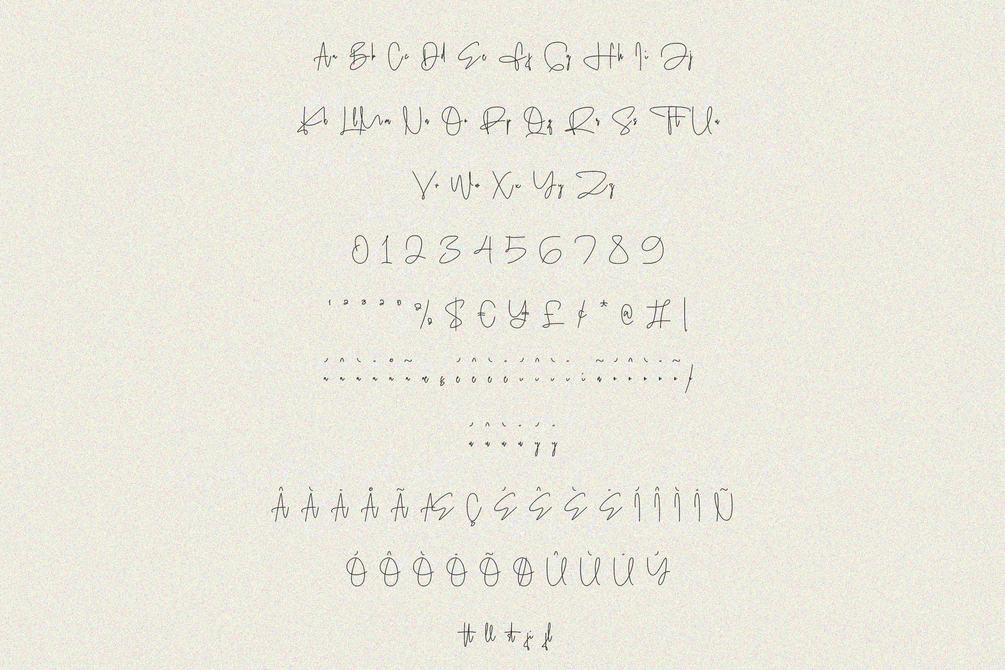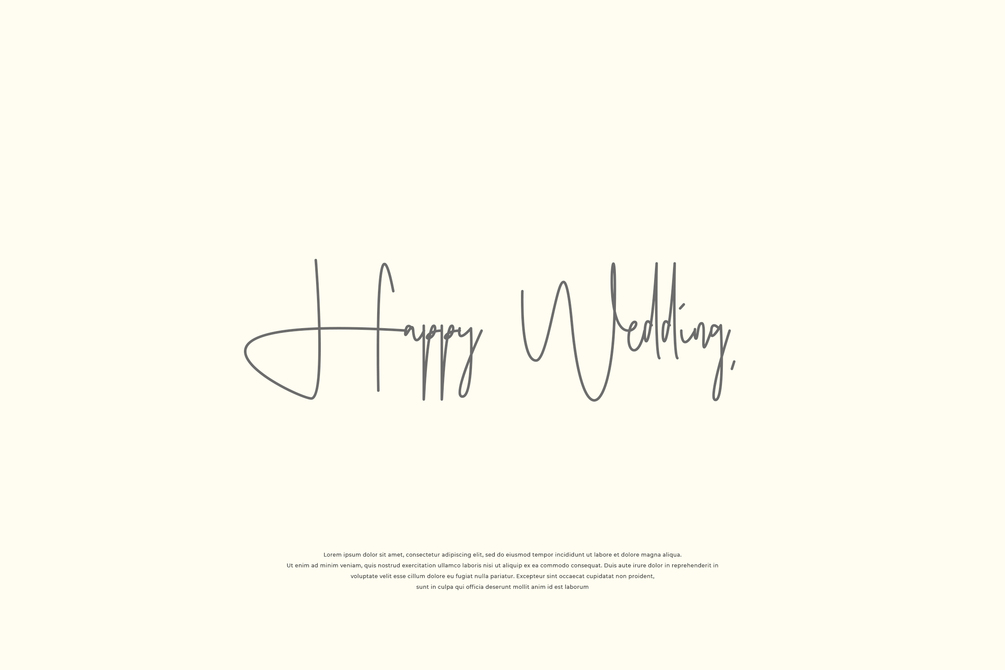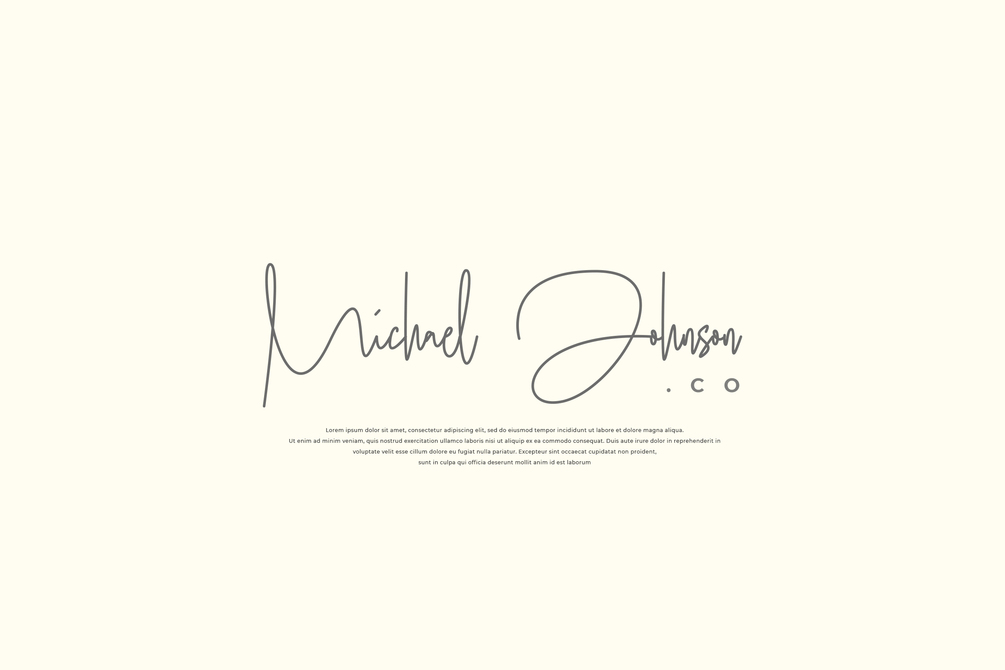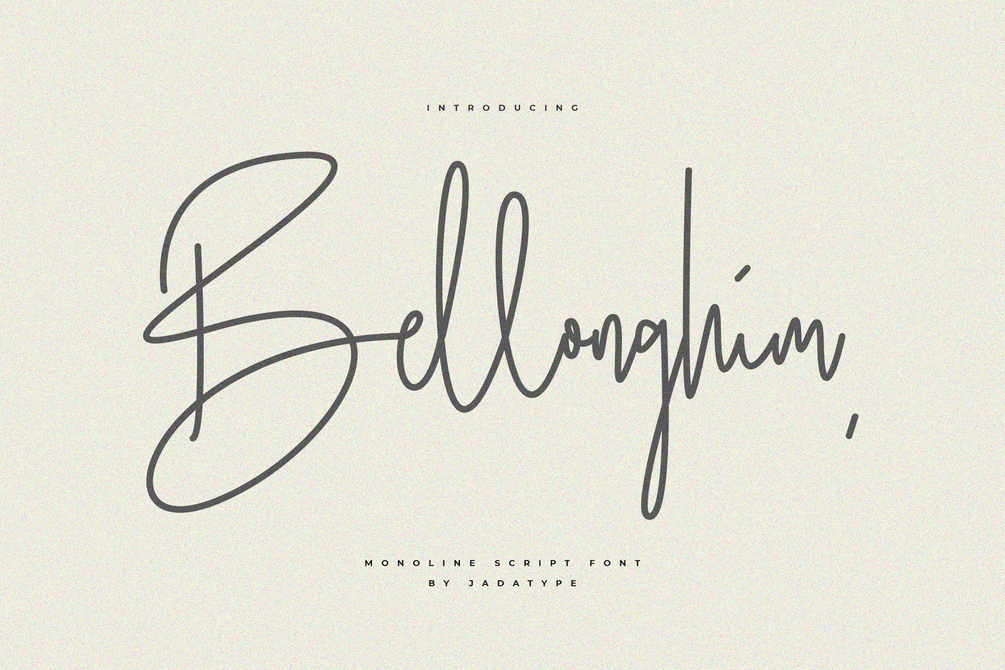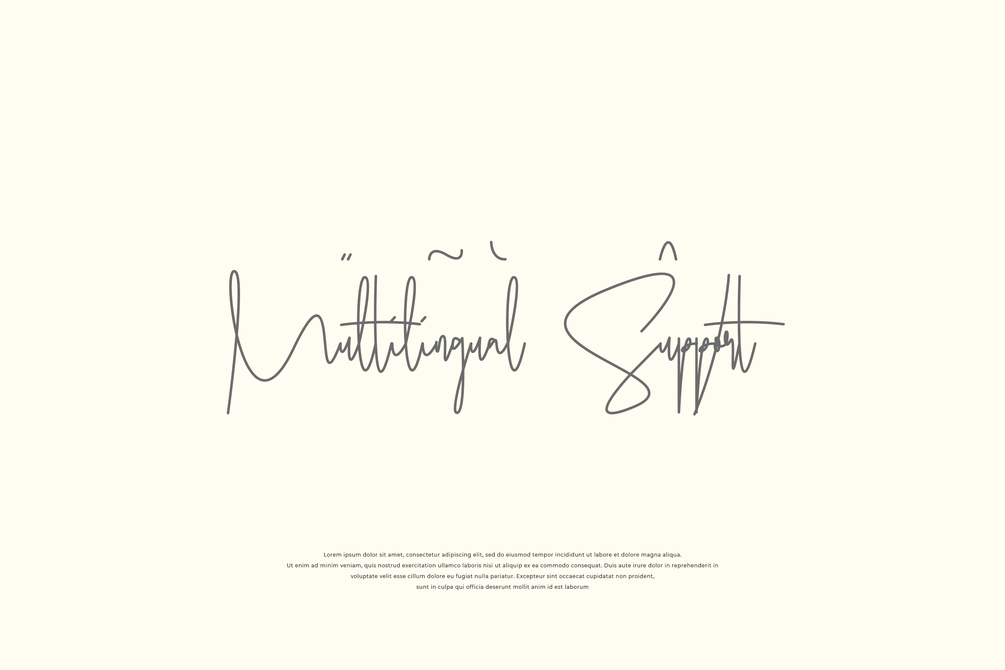
Bellonghim Font
Bellonghim is a script font that comes with a monoline style. suitable for posters, tshirt, branding, social media, and so on. contains standard English letters, numbers, punctuation, and several accents that support multilingualism.